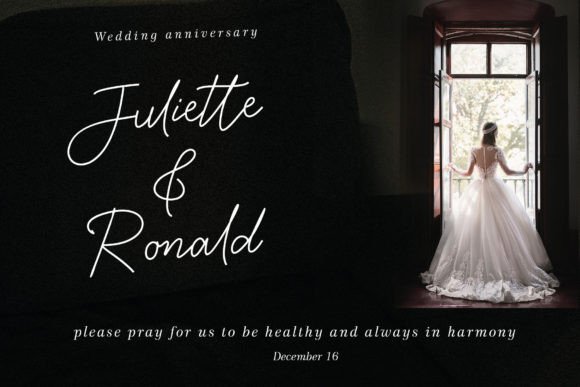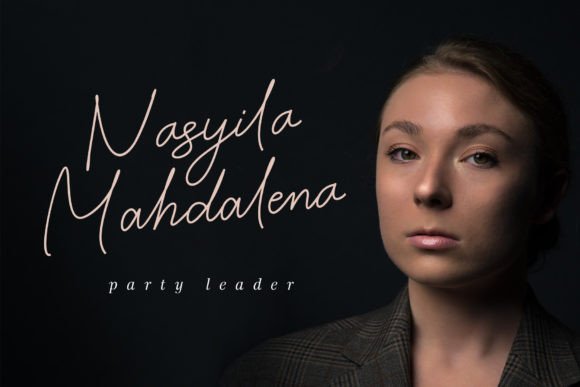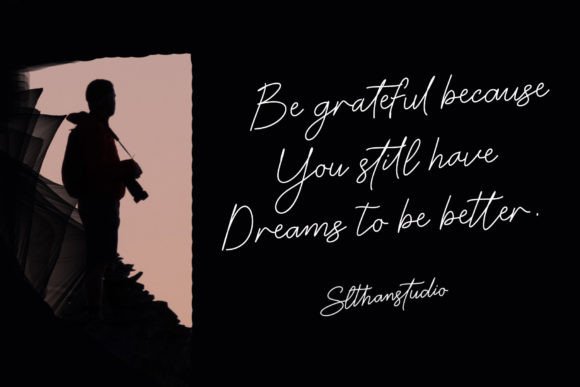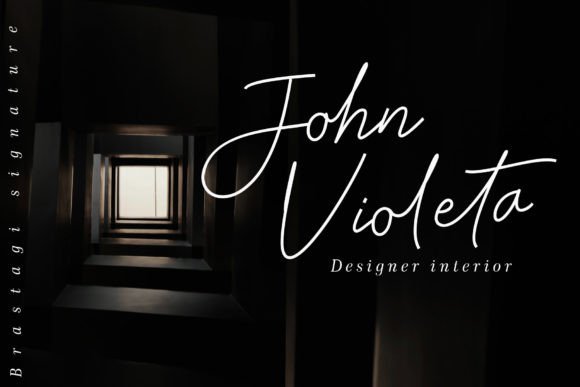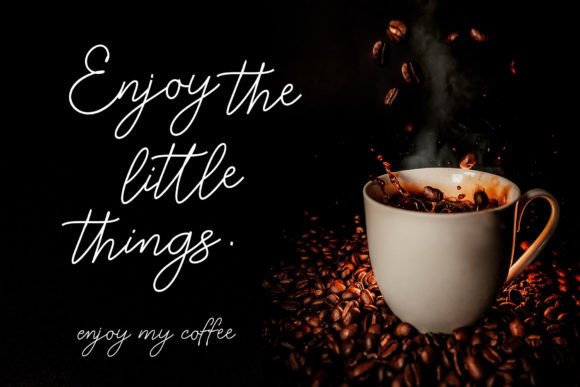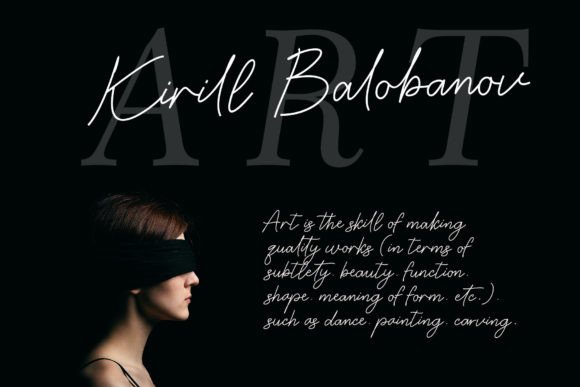
Introducing Brastagi Signature Font: The Ultimate Handwritten Script for Elegant Designs
Are you a designer or crafter looking for a font that adds a touch of elegance and sophistication to your designs? Look no further than Brastagi Signature Font, a beautiful handwritten script font that is perfect for a variety of design projects. In this article, we’ll take a closer look at Brastagi Signature Font, its features, and how you can use it to elevate your designs.
What is Brastagi Signature Font?
Brastagi Signature Font is a dainty and stylish handwritten script font that is designed to add a personal touch to your designs. Its elegant and flowing lines make it perfect for creating beautiful wedding invitations, thank you cards, quotes, greeting cards, logos, business cards, and more.
Features of Brastagi Signature Font
So, what makes Brastagi Signature Font so special? Here are some of its key features:
- Handwritten script font: Brastagi Signature Font is a handwritten script font that mimics the look of handwritten text. Its unique and personal style makes it perfect for designs that require a human touch.
- Elegant and stylish: The font features elegant and flowing lines that give it a sophisticated and stylish look. It’s perfect for designs that require a touch of luxury and glamour.
- Versatile: Brastagi Signature Font is a versatile font that can be used for a variety of design projects, from wedding invitations and greeting cards to logos and business cards.
- Easy to read: Despite its elegant and cursive style, Brastagi Signature Font is easy to read, making it perfect for designs that require a clear and legible text.
Uses of Brastagi Signature Font
So, how can you use Brastagi Signature Font in your designs? Here are some ideas:
- Wedding invitations: Brastagi Signature Font is perfect for creating beautiful and elegant wedding invitations that set the tone for the big day.
- Thank you cards: The font is also great for creating thank you cards that are personalized and heartfelt.
- Quotes and posters: Brastagi Signature Font can be used to create inspiring quotes and posters that feature elegant and stylish text.
- Greeting cards: The font is perfect for creating greeting cards for special occasions, such as birthdays, anniversaries, and holidays.
- Logos and business cards: Brastagi Signature Font can also be used to create elegant and sophisticated logos and business cards that make a great impression.
Tips for Using Brastagi Signature Font
Here are some tips for using Brastagi Signature Font in your designs:
- Use it sparingly: Brastagi Signature Font is a elegant and stylish font, so use it sparingly to avoid overwhelming your design.
- Pair it with other fonts: The font can be paired with other fonts to create a unique and interesting design.
- Experiment with colors: Brastagi Signature Font looks great in a variety of colors, so experiment with different colors to find the one that works best for your design.
| Font Name | Brastagi Signature Font |
| Author | Sulthan Studio |
In conclusion, Brastagi Signature Font is a beautiful handwritten script font that is perfect for designers and crafters who want to add a touch of elegance and sophistication to their designs. Its elegant and flowing lines, versatility, and ease of use make it a great choice for a variety of design projects. Whether you’re creating wedding invitations, thank you cards, quotes, greeting cards, logos, or business cards, Brastagi Signature Font is sure to impress.